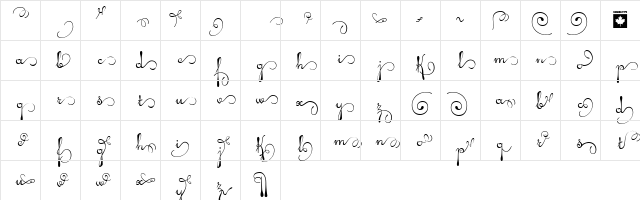
Complete Pendulum Swings Regular glyph index. Displaying only characters natively supported by Pendulum Swings Regular font.
Pendulum Swings is a composed and adaptable typeface that performs quietly and consistently across a wide range of design contexts.